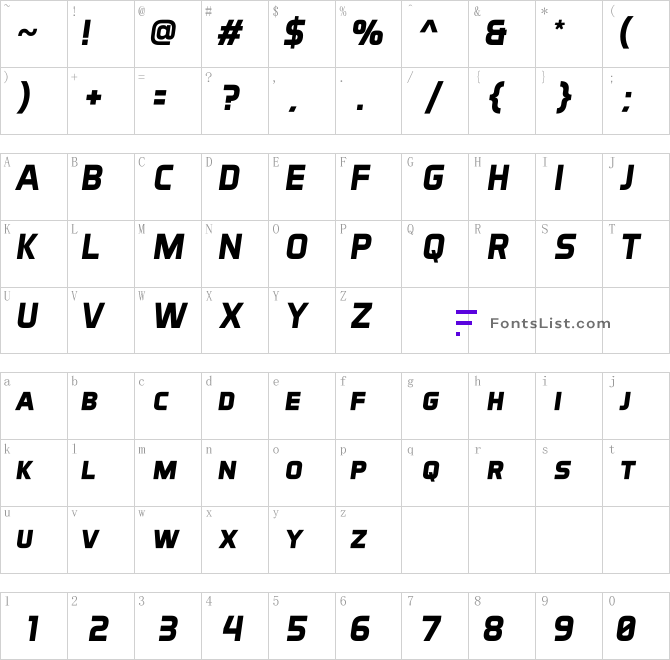
- Font Name:Aero Matics Display
- Subfamily:Bold Italic
- Subfamily:Aero Matics Display Bold Italic
- Full Name:Aero Matics Display Bold Italic
Aero-Matics-Display-Bold-Italic.ttf is a very beautiful artistic font, Aero-Matics-Display-Bold-Italic.ttf is widely used in the design and printing of various books and pictures,Aero-Matics-Display-Bold-Italic.ttf has a strong visual impact,Aero-Matics-Display-Bold-Italic.ttf is a commonly used font in newspapers, magazines and books, and is used in posters, e-commerce Poster design, store design, logo design, font design and other fields.Aero-Matics-Display-Bold-Italic.